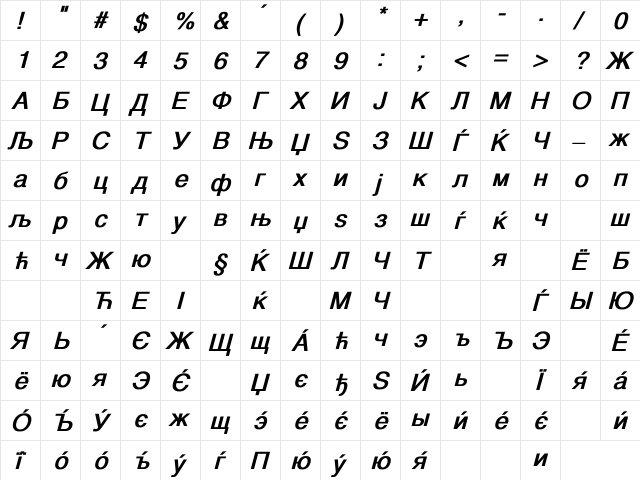
MKDHELVA Bold Italic
Design Context for MKDHELVA Typeface
MKDHELVA is a composed and adaptable typeface that performs quietly and consistently across a wide range of design contexts. The dynamic lean of this cut emphasises speed and emphasis in any layout. Its bold stroke weight gives it real presence on the page.